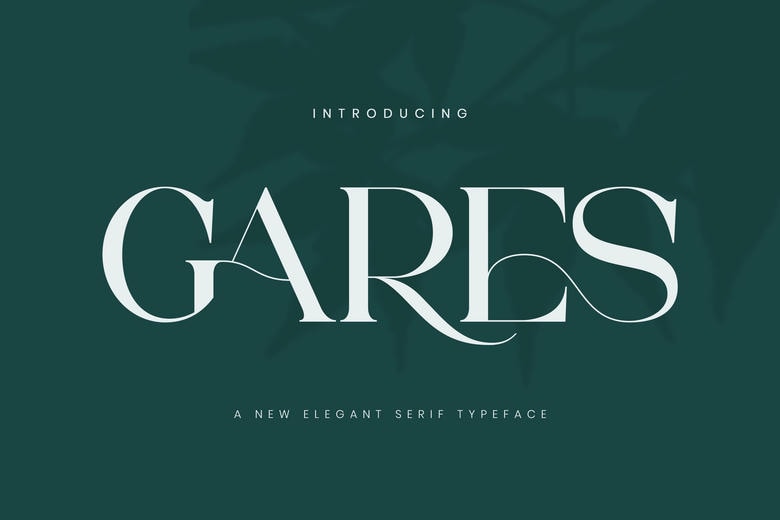
Gares Font
Gares is a bold and elegant serif typeface with fashionable ligatures and vibrant forms. Its sharp lines and modern way of elegance qualify it as an ideal branding, high-fashion editorial spread, packaging, and contemporary logo design. Sophisticated yet sharp.
Gares Elegant Serif Font